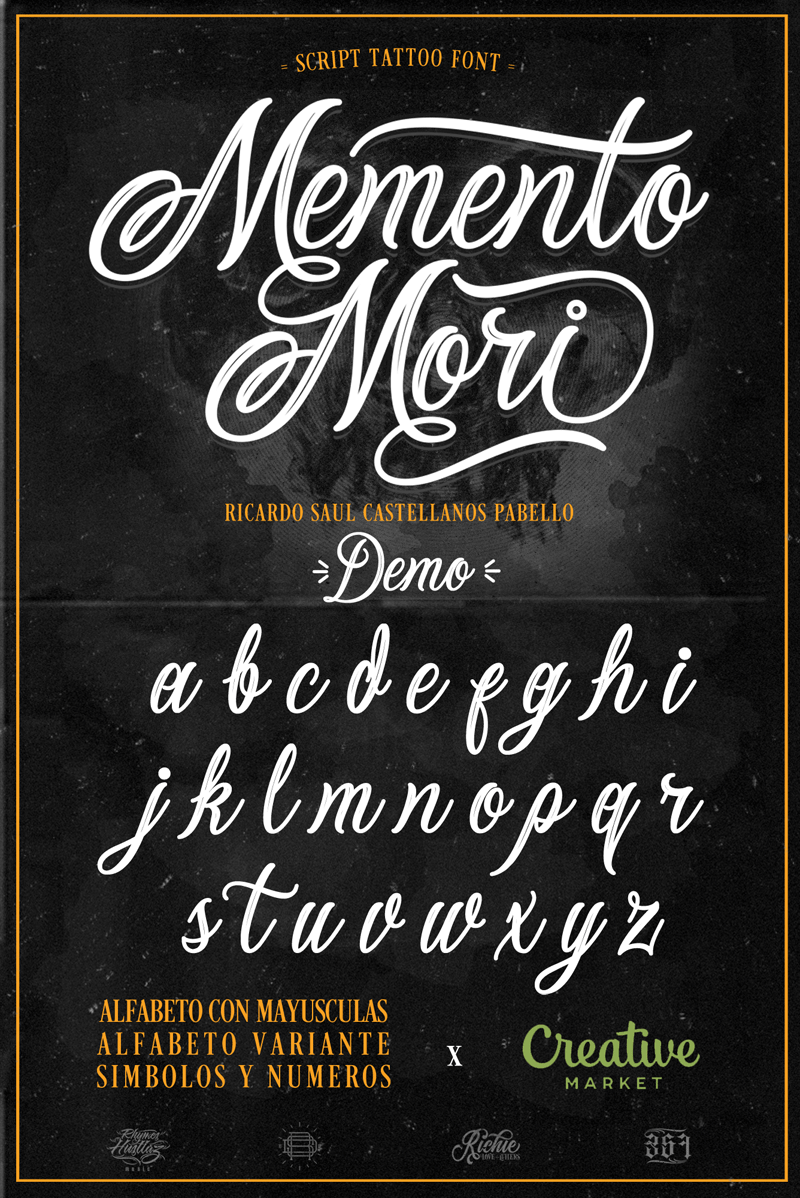
Memento Mori is a typeface inspired by the Scrip Tattoo style, created by Ricardo Saul Castellanos Pabello "Richie Mx" in the design studio "Riders on the Storm Design" MANY THANKS FOR SUPPORTING MY WORK Follow me on my different social networks: Instagram: @richiesputo Facebook Page: Riders on the Storm Design 624/357 Clica / Rhymes Hustlaz / Calavera Streetwear Los Cabos, Baja California Sur, Mexico |